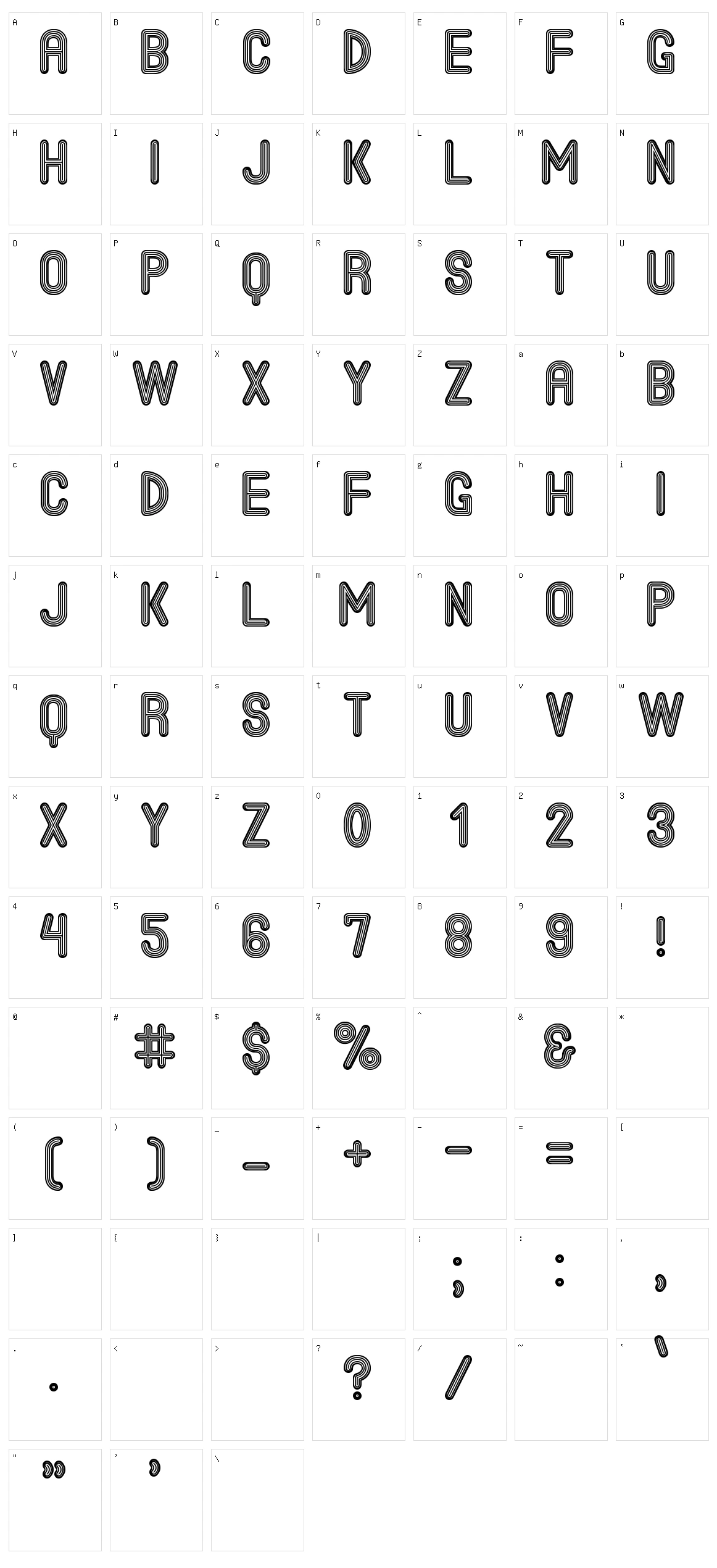
The free font The Jack Bronw St is carefully designed by Southype, showcasing a thoughtful balance of creativity and usability and falls under the Groovy font style. When you download the ZIP file, it contains only 27.16 KB of font files, making it lightweight and quick to download. Please review the license details below to understand permitted usage and distribution rights. If license information is not available, we recommend using this font for personal projects only or contacting the author directly for commercial usage permissions.